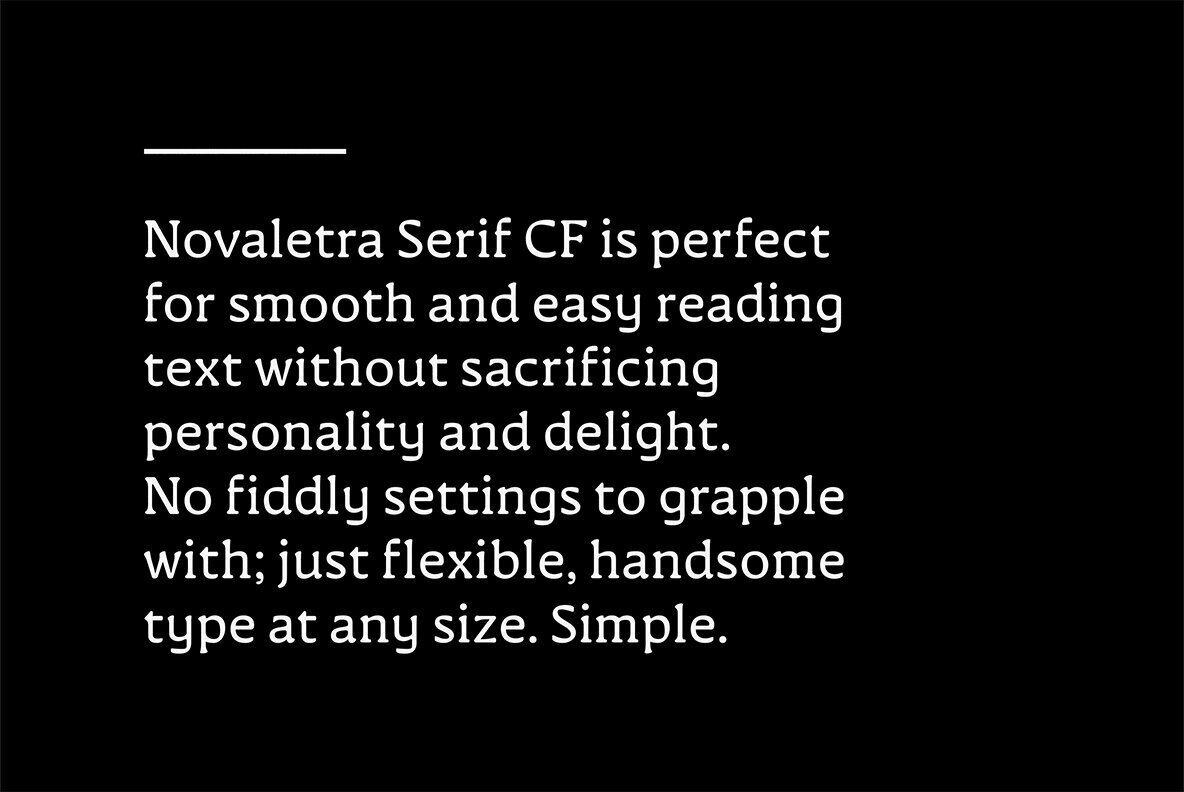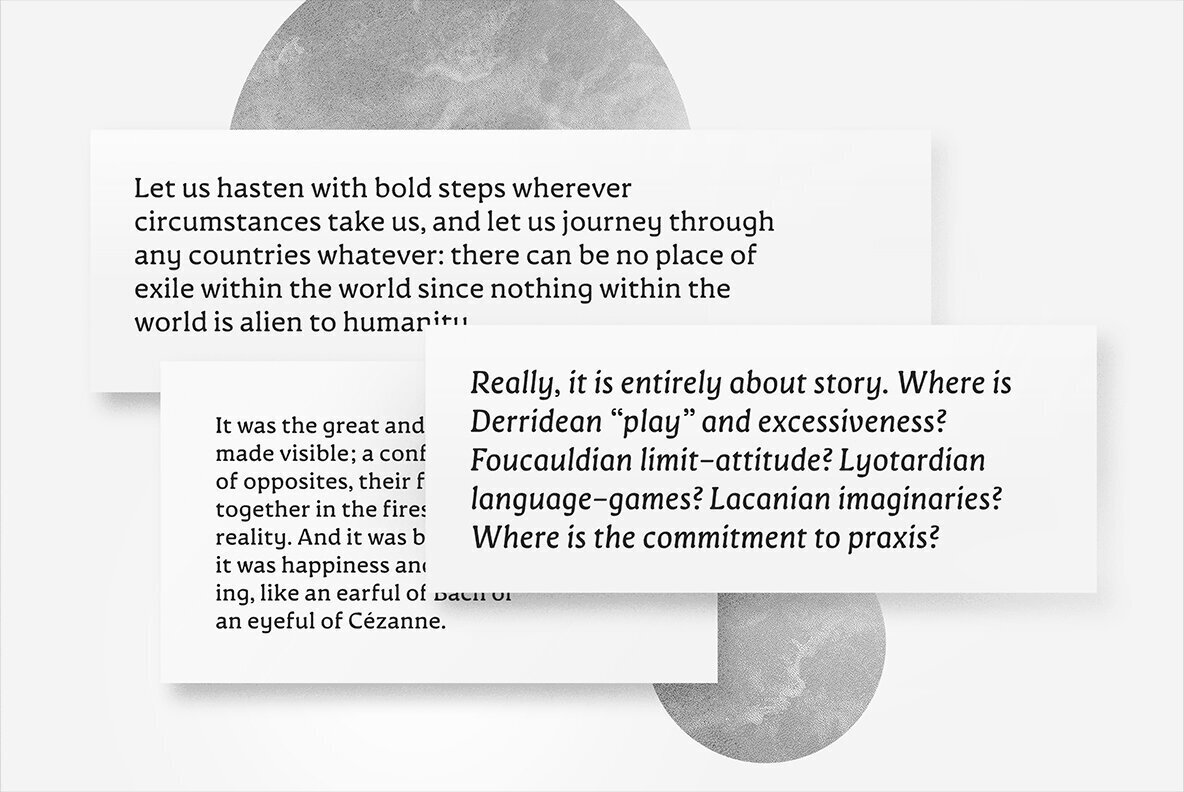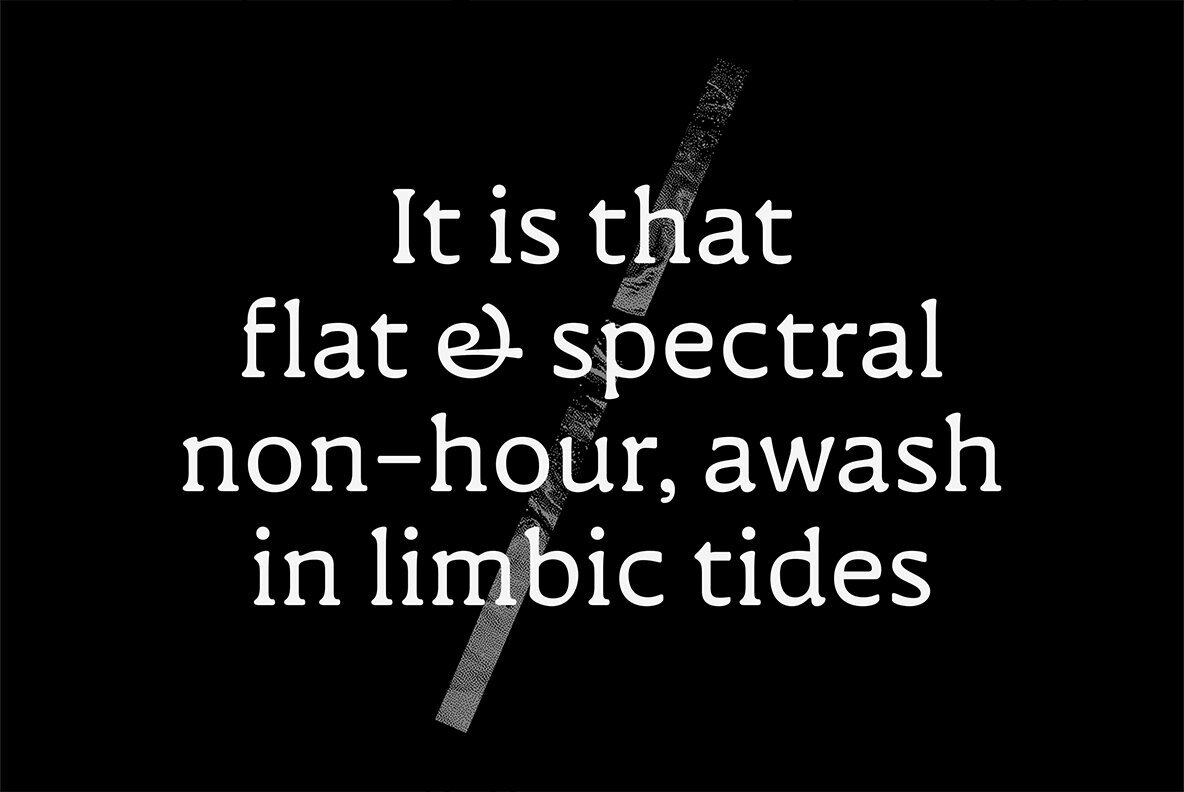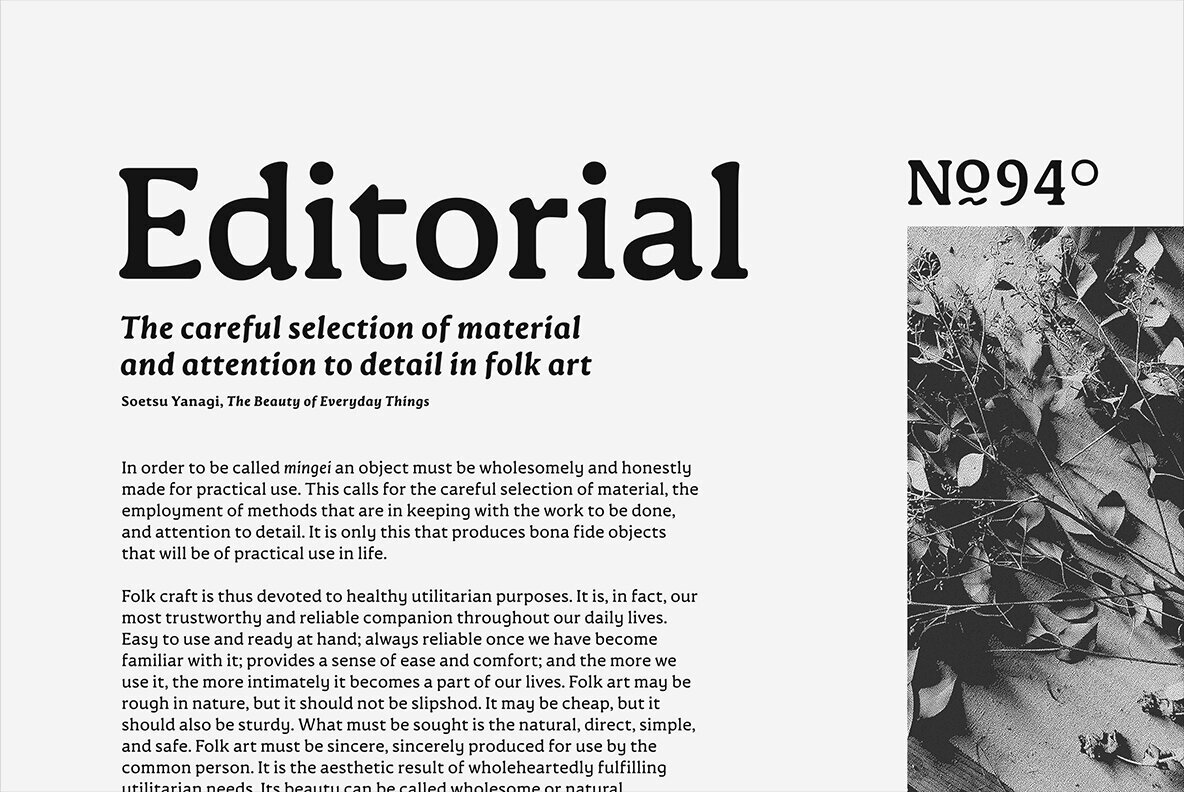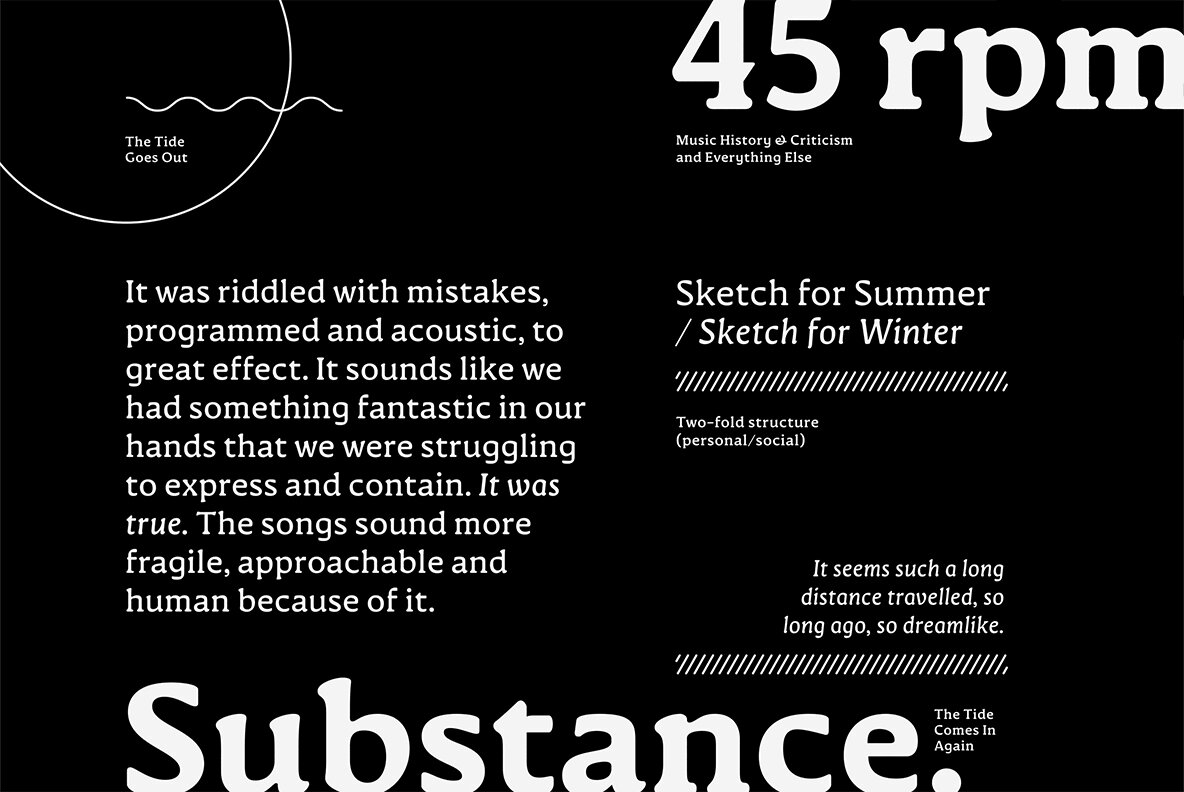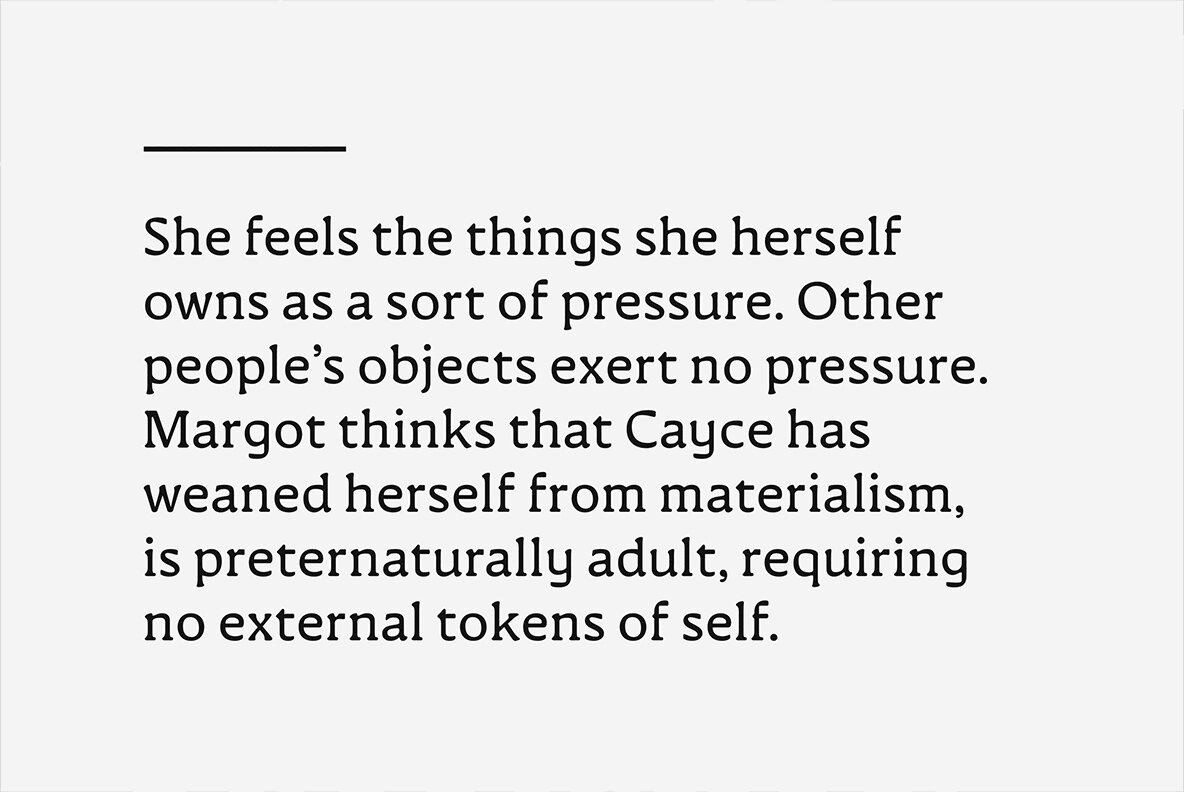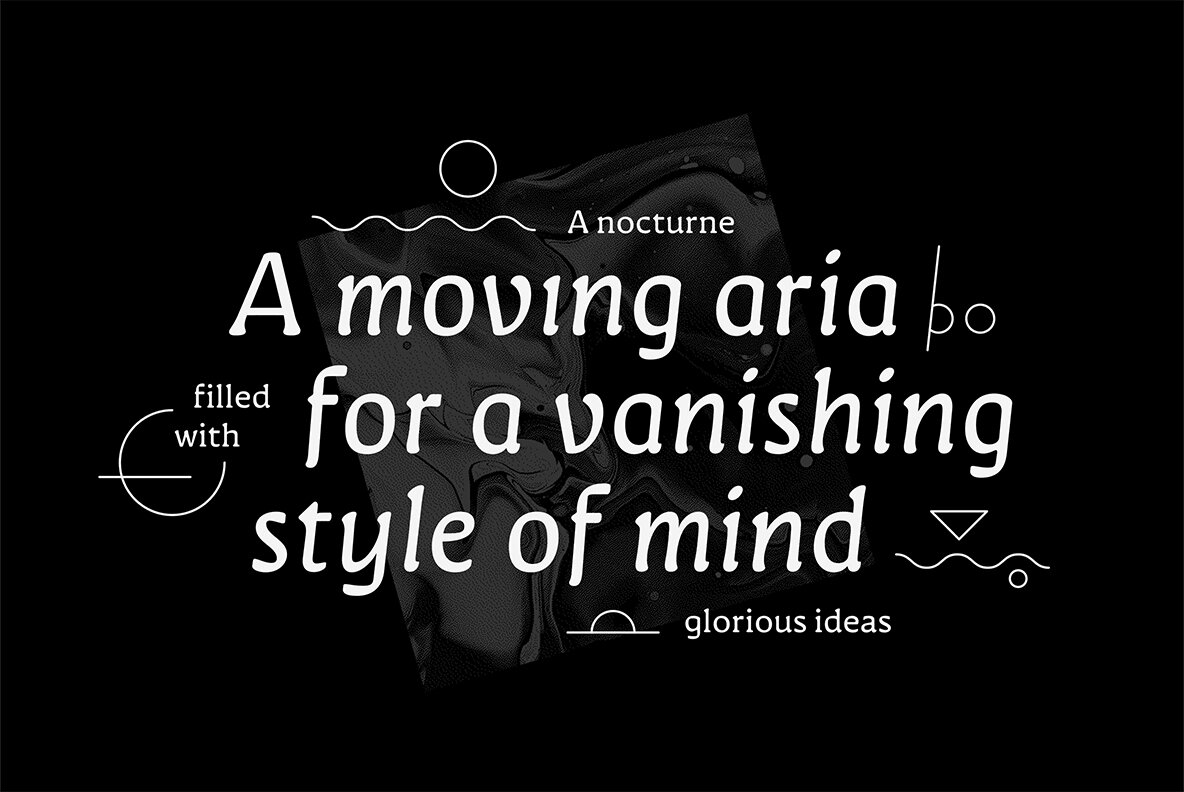
Novaletra Serif CF Font
Legibility. Flexibility. Personality. No need to pick two; Novaletra Serif CF has it all. Liven up body text, captions, and headlines with Novaletra’s smooth, low-contrast design set across seven weights with italics. Versatile and easy to read at any size, Novaletra includes useful features like wide language support across Latin and Cyrillic scripts, international currency symbols, fractions, tabular numbers, and more.
• Seven weights with matching italics
• Latin and Cyrillic scripts with wide language support
• International currency symbols
• Fractions, tabular numbers, lining/oldstyle numbers